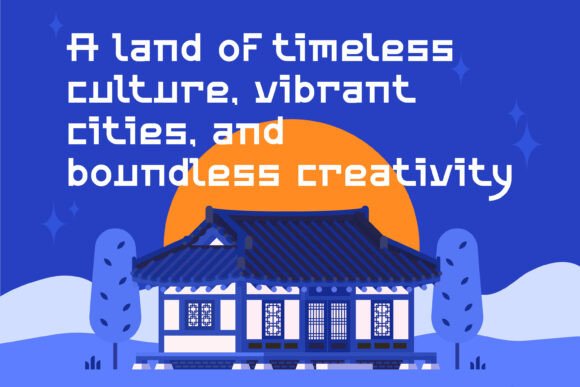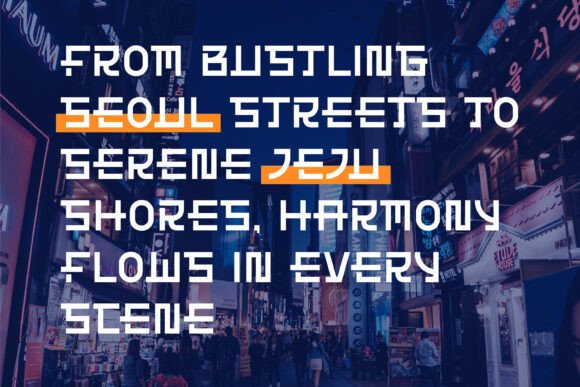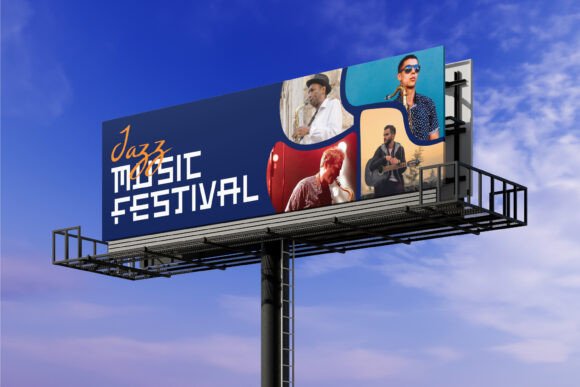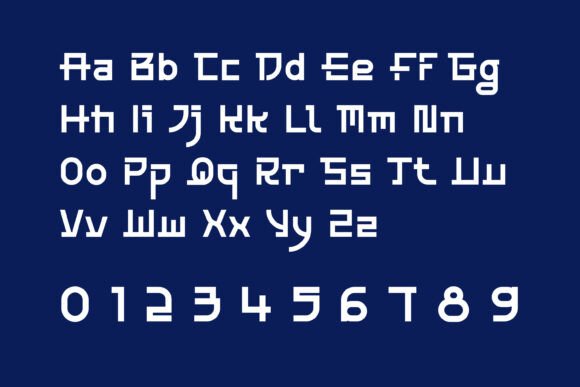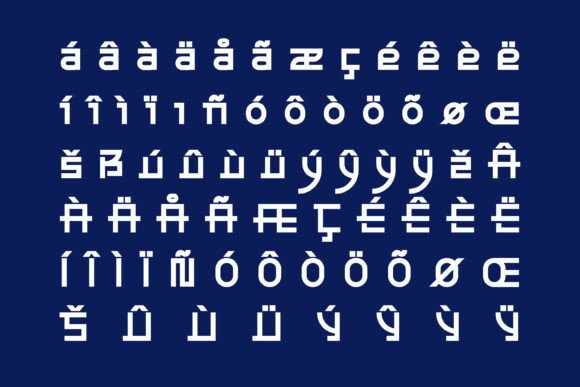
From Busans: Unleash the Playful Energy of Korean Hangeul-Inspired Typography
Are you ready to add a dash of Korean flair to your designs? Look no further than From Busans, a bold, quirky, and super fun display font that’s inspired by the playful forms of Korean Hangeul! This exciting new font is perfect for designers and crafters who want to bring a unique and eye-catching vibe to their work.
What is From Busans?
From Busans is a display font that’s all about energy, personality, and attitude. Its boxy shapes, funky rhythm, and eye-catching outline make it the perfect choice for headlines, posters, K-pop fan merch, snack packaging, and anything that needs a bold, cultural punch. Whether you’re repping your favorite K-drama or just want your design to stand out, From Busans has got your back.
The Inspiration Behind From Busans
From Busans takes its inspiration from the playful forms of Korean Hangeul, one of the most unique and fascinating writing systems in the world. Korean Hangeul is known for its bold, geometric shapes and rhythmic flow, which From Busans perfectly captures. The font’s designer has skillfully blended traditional Korean typography with modern Western design sensibilities, creating a truly one-of-a-kind font that’s both East-meets-West and totally on-trend.
What Makes From Busans So Special?
So, what sets From Busans apart from other fonts out there? Here are just a few things that make this font so special:
- Unique and quirky design: From Busans is a true original, with a design that’s both bold and playful. Its boxy shapes and funky rhythm make it perfect for designs that need a bit of personality.
- Korean Hangeul inspiration: From Busans is inspired by the beautiful and unique forms of Korean Hangeul, making it a great choice for designers who want to add a touch of Korean culture to their work.
- Perfect for display text: From Busans is a display font through and through, making it perfect for headlines, posters, and other large-format designs.
- Easy to read: Despite its bold and quirky design, From Busans is still easy to read, even at smaller sizes.
Use Cases for From Busans
So, what can you use From Busans for? The possibilities are endless, but here are a few ideas to get you started:
- K-pop fan merch: From Busans is perfect for creating bold and eye-catching designs for K-pop fans.
- K-drama promotions: Whether you’re promoting your favorite K-drama or creating a fan site, From Busans is the perfect font to add a touch of Korean flair.
- Snack packaging: From Busans is a great choice for snack packaging that needs to stand out on store shelves.
- Posters and flyers: From Busans is perfect for creating bold and eye-catching posters and flyers.
Tips for Using From Busans
Here are a few tips for getting the most out of From Busans:
- Use it bold and big: From Busans is a display font, so don’t be afraid to use it big and bold.
- Experiment with colors: From Busans looks great in a variety of colors, so don’t be afraid to experiment and find the perfect hue for your design.
- Pair it with a simple font: From Busans is a bold and eye-catching font, so it’s best paired with a simpler font for body text.
From Busans is a truly unique and exciting font that’s perfect for designers and crafters who want to add a touch of Korean flair to their work. With its bold and quirky design, Korean Hangeul inspiration, and ease of use, From Busans is sure to become a favorite font in your collection. So why wait? Download From Busans today and start creating bold and eye-catching designs that are sure to turn heads!